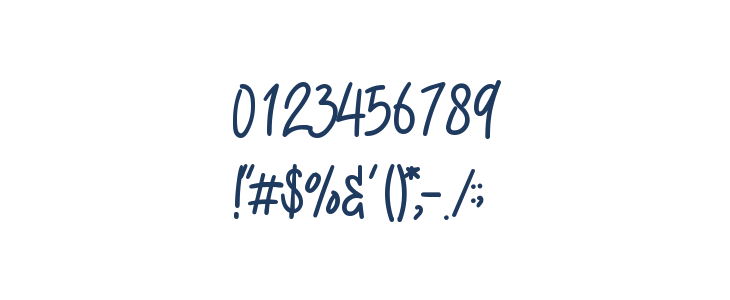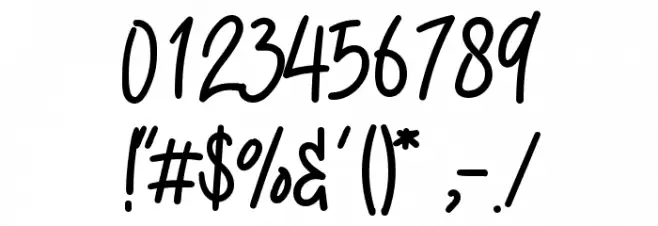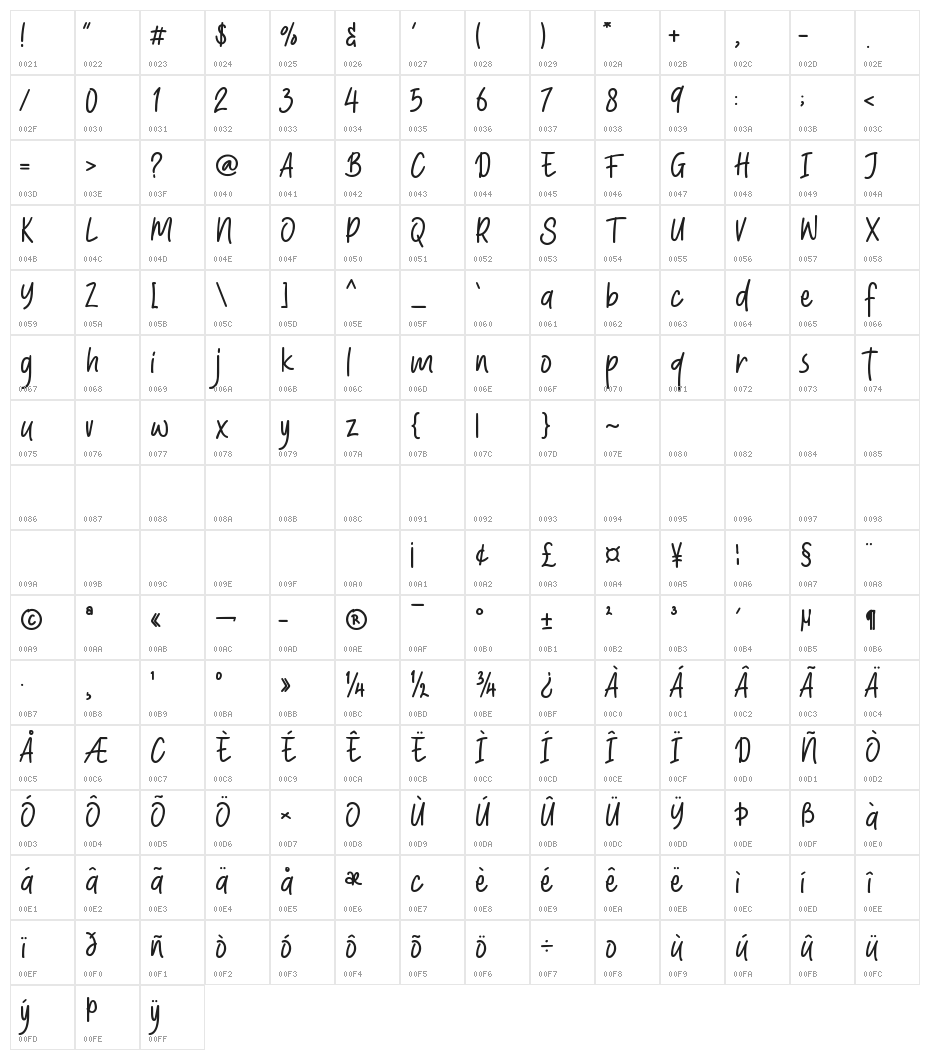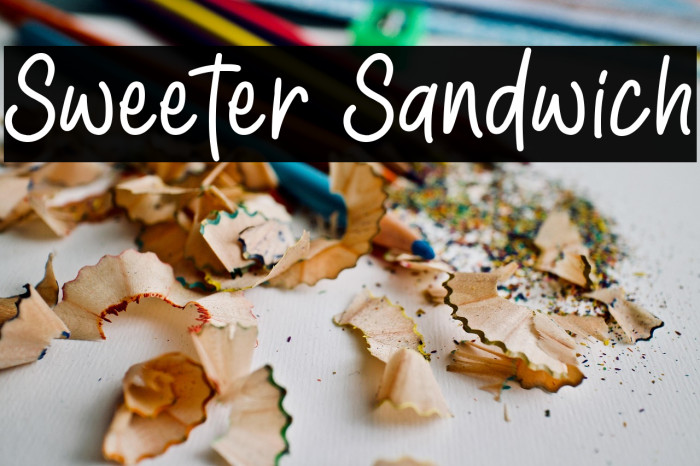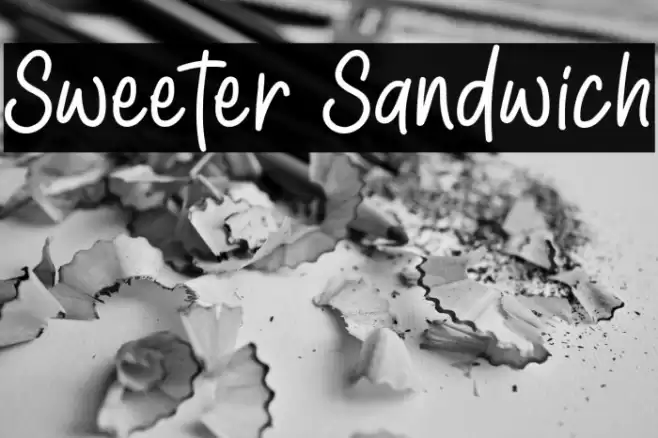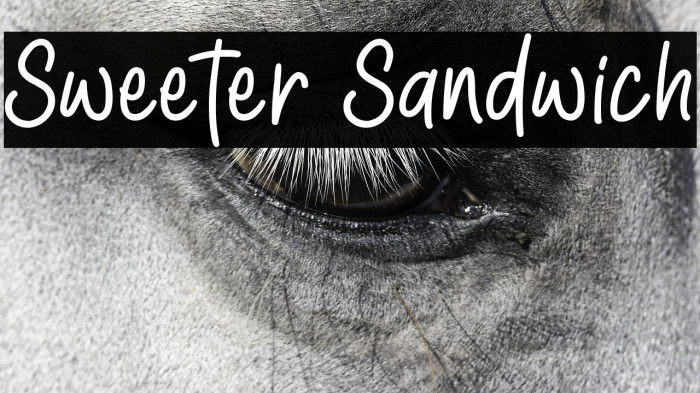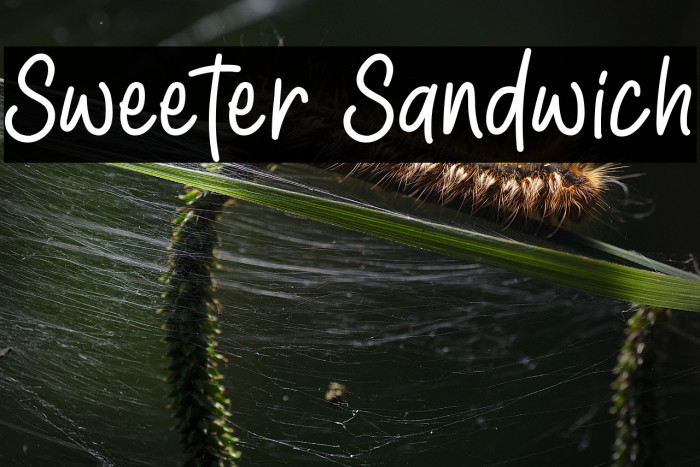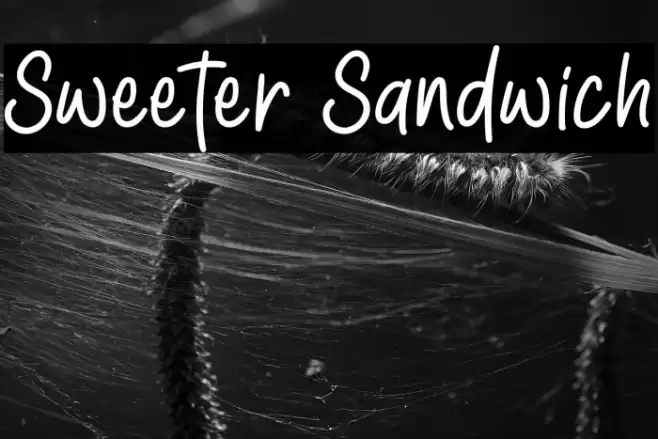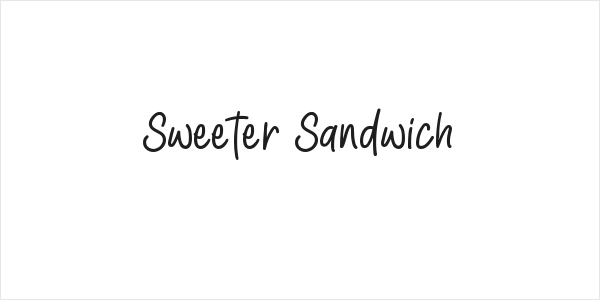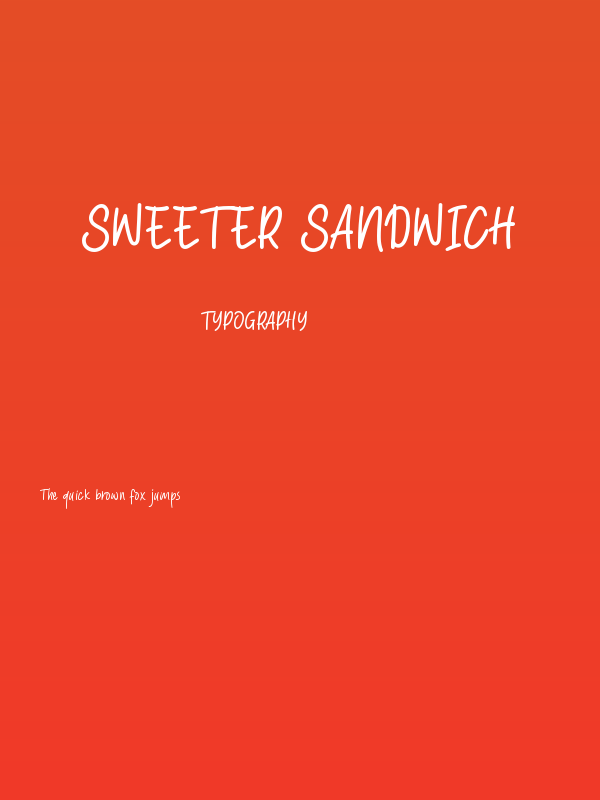
Sweeter Sandwich Font
Sweeter Sandwich Description
This playful and informal font features a handwritten style with smooth, flowing lines that give it a casual and friendly appearance. The letters are slightly slanted, adding to the dynamic feel, while maintaining legibility. The uppercase and lowercase characters are well-balanced, with a consistent stroke width that provides a harmonious look. Numbers and special characters are included, matching the overall style with a touch of whimsy. This font is perfect for projects that require a personal touch, such as greeting cards, invitations, or social media graphics.
| Proposed Projects | Ideal for greeting cards, invitations, social media graphics, and personal branding. |